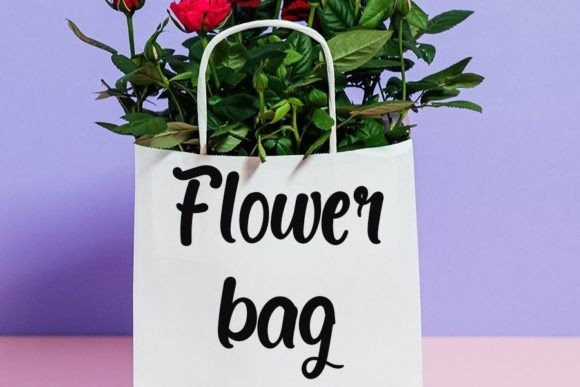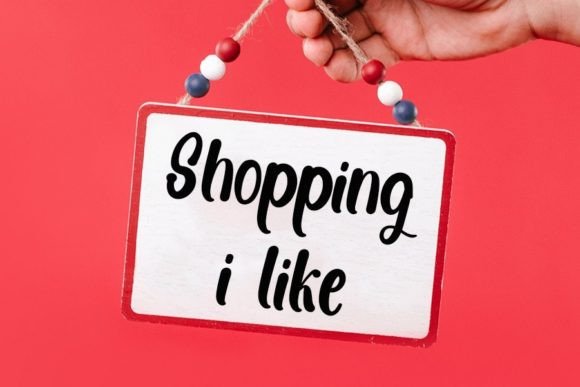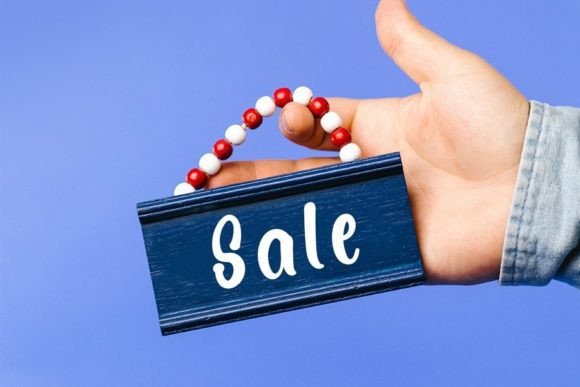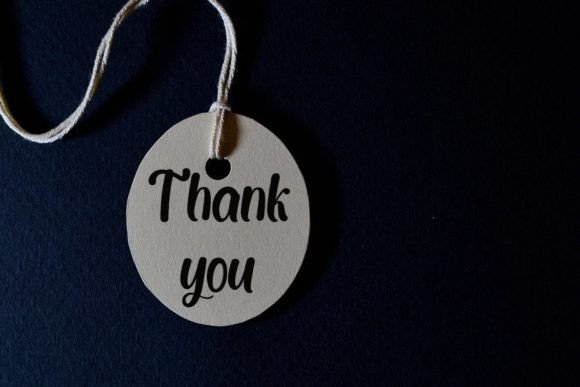
Girly Font
About Girly Font
Girly sounds like a delightful and elegant handwritten font, combining neatness with a beautiful touch. Its distinct and timeless style suggests that it can add a touch of sophistication and charm to a variety of design projects.
The description of Girly as perfect for your favorite projects indicates its versatility and adaptability to different creative endeavors. Handwritten fonts with an elegant touch often bring a sense of personality and warmth to designs, making them suitable for a range of applications.
Consider incorporating Girly into your design projects to explore its distinct and timeless qualities fully. Whether you’re working on invitations, branding, social media graphics, or any other creative endeavor, Girly seems to offer a font style that can elevate your designs and make them visually spectacular.
Fonts with an elegant touch, like Girly, can contribute to creating a refined and visually appealing atmosphere in design. Enjoy utilizing Girly in your favorite projects, and may it add a touch of sophistication and beauty to your typography, making your designs truly stand out!